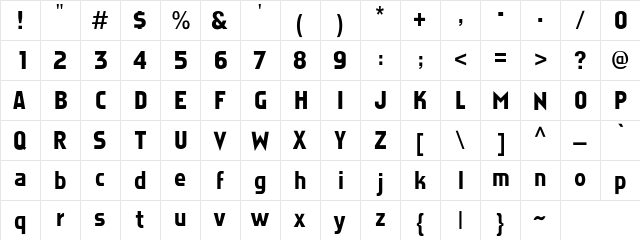
Faktos-Light Regular
Design Context for Faktos-Light Typeface
Faktos-Light is a composed and adaptable typeface that performs quietly and consistently across a wide range of design contexts. Its slender proportions lend an understated elegance to any composition.